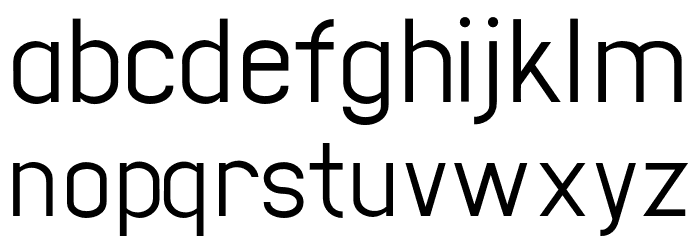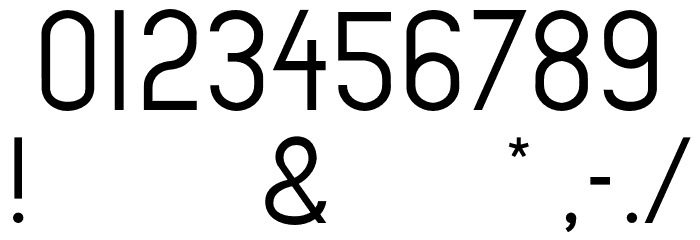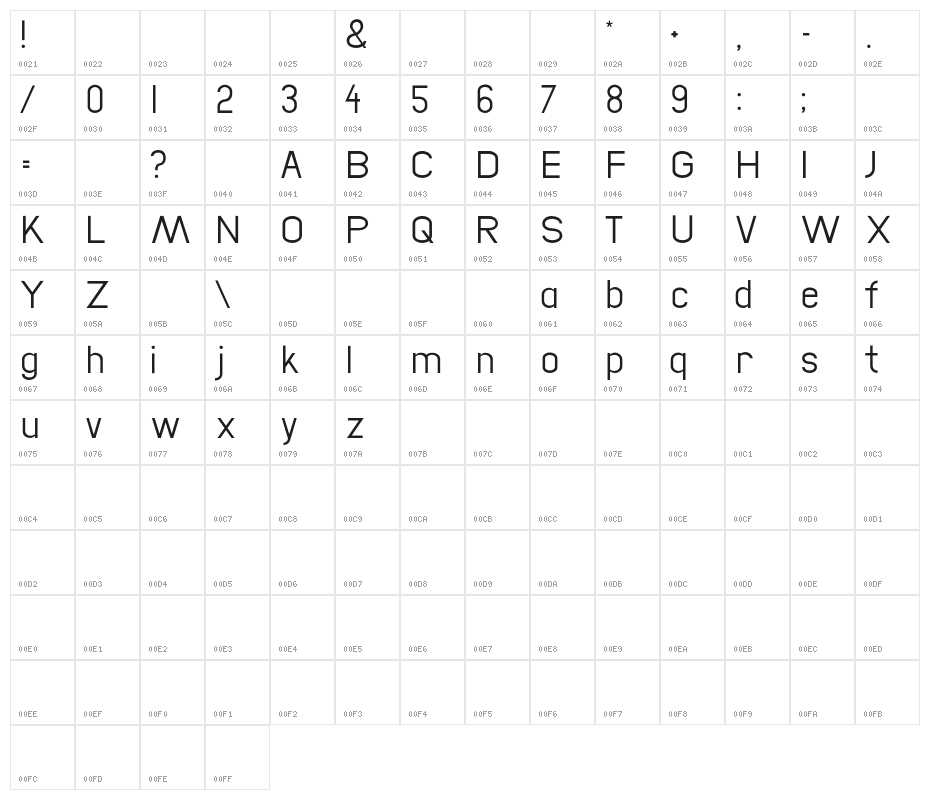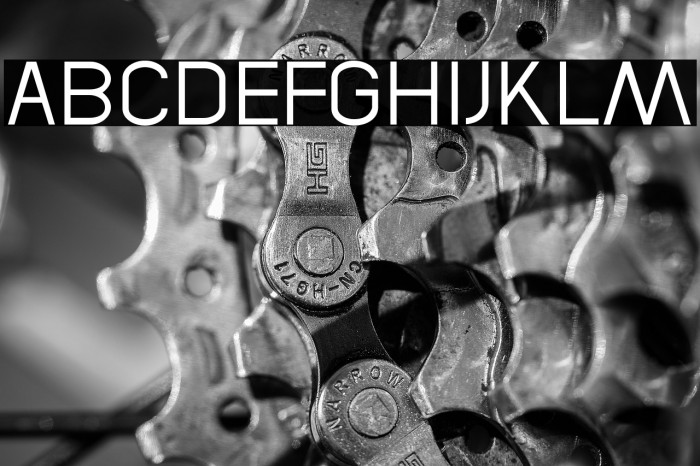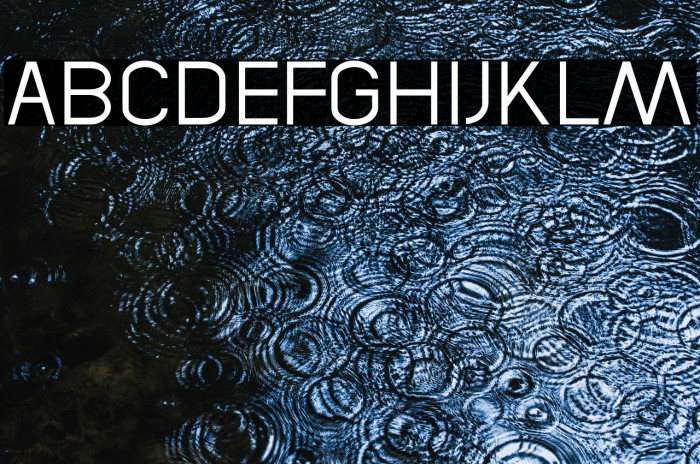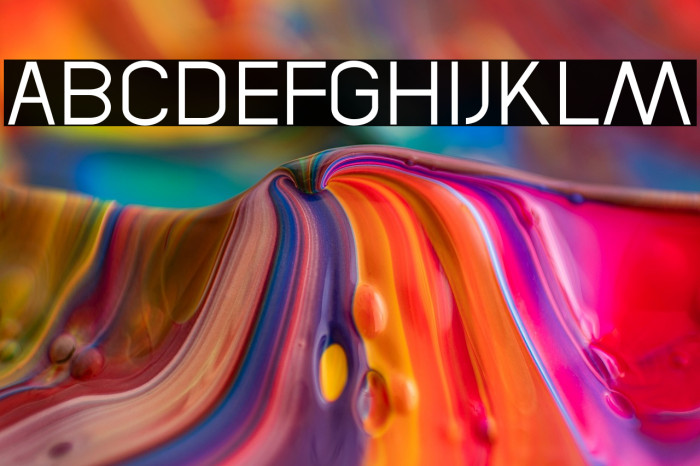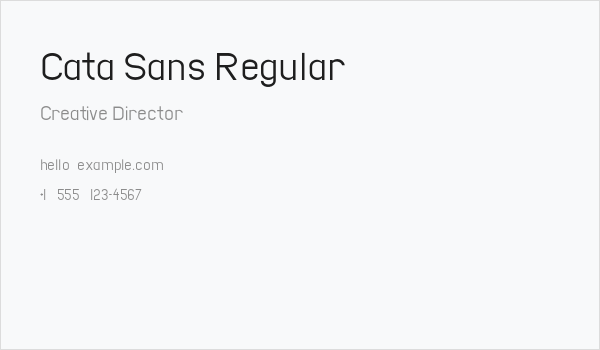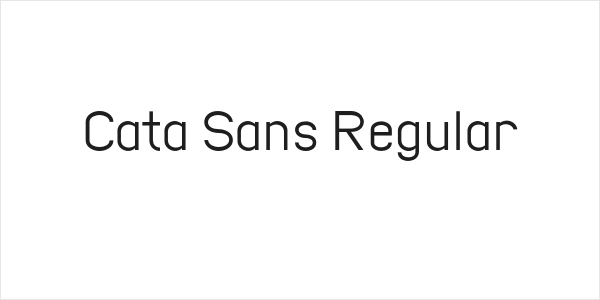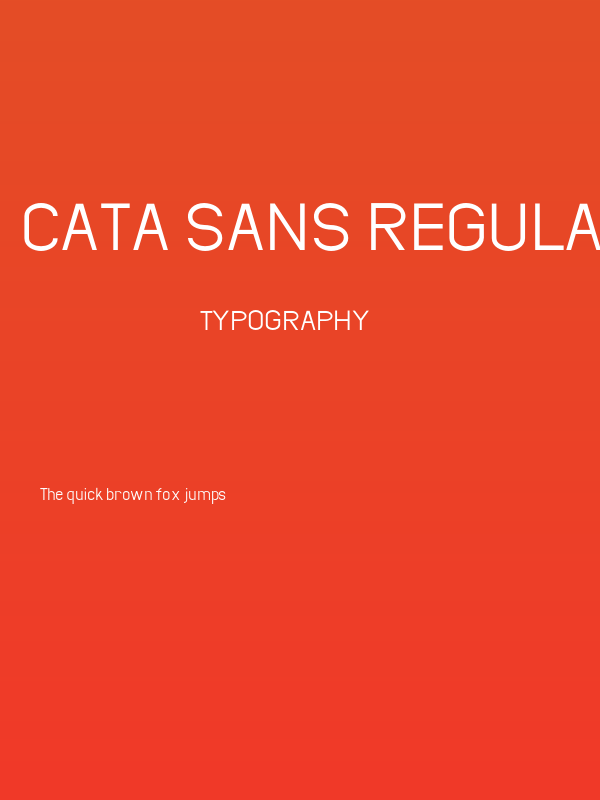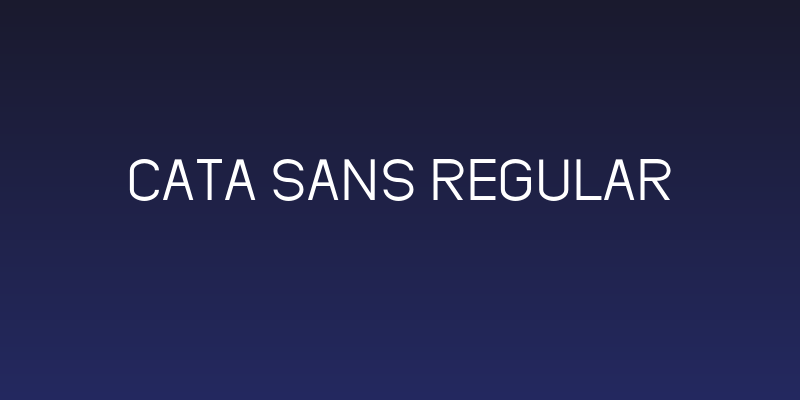
Cata Sans Regular Font
This font features a clean and modern sans-serif design, characterized by its geometric shapes and uniform stroke widths. The uppercase letters are bold and assertive, while the lowercase letters maintain a consistent height, providing a balanced and harmonious look. The numerals are clear and legible, making them suitable for various applications. Special characters are designed with simplicity and clarity in mind, enhancing the font's versatility. Overall, this font exudes a contemporary and professional feel, making it ideal for digital and print media.
- Proposed Projects: Ideal for branding, web design, corporate materials, and editorial layouts.